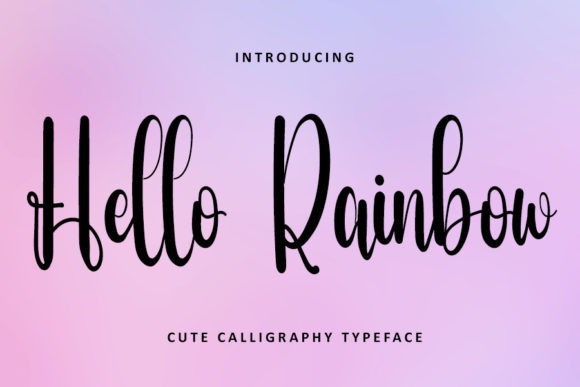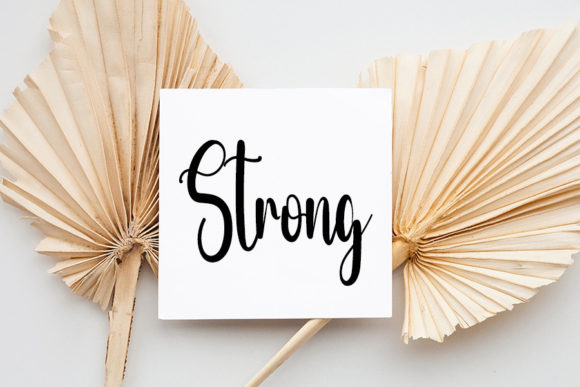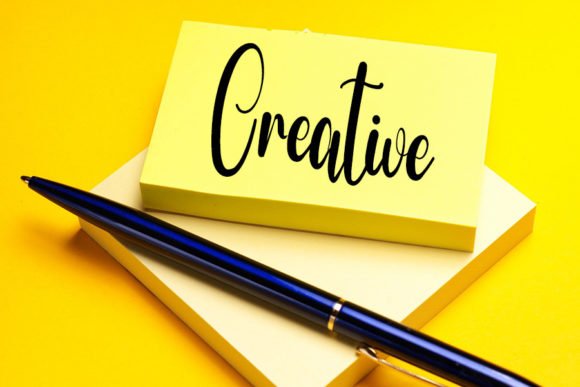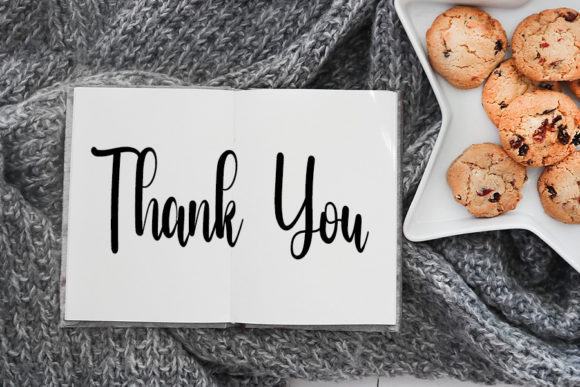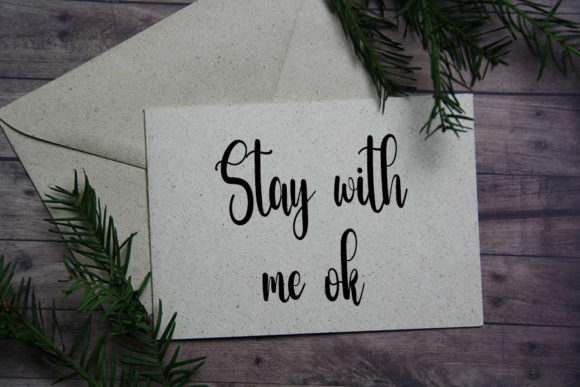
Hello Rainbow Font
About Hello Rainbow Font
“Hello Rainbow” emerges as a delightful handwritten font, designed to elevate your work with its lovely and elegant curvy lines. Tailored to make a statement, this font proves to be perfect for an array of creative endeavors, including product packaging, branding projects, magazine covers, social media content, weddings, or any scenario where expressing words with a touch of grace above the background is paramount.
The charm of “Hello Rainbow” lies in its graceful and curvaceous lines, which add a sense of elegance to any text it graces. The font’s lovely handwritten elements exude a warmth and sophistication that make it a versatile asset for designers seeking to infuse their projects with a visually pleasing and engaging aesthetic.
When applied to product packaging, “Hello Rainbow” transforms the ordinary into the extraordinary. Its elegant and curvy characteristics add a whimsical and refined flair to packaging design, capturing the attention of consumers and creating a memorable brand identity. Whether used for beauty products, gourmet items, or other merchandise, this font imparts a sense of uniqueness and charm.
In branding projects, “Hello Rainbow” becomes a visual representation of sophistication and creativity. Its lovely handwritten style can convey a sense of personality, establishing a connection between the brand and its audience. The font’s graceful lines make it suitable for a wide range of industries, from fashion to lifestyle.
Magazine covers benefit from the font’s ability to create captivating headlines and taglines. The elegant curves ensure that the cover text stands out, inviting readers to explore the content within. “Hello Rainbow” adds a layer of charm and sophistication to various genres, contributing to an overall visually appealing design.
In the realm of social media, where visual impact is crucial, “Hello Rainbow” shines. Whether incorporated into posts, captions, or stories, this font introduces a level of elegance that captures attention and enhances engagement. Its adaptability makes it suitable for a variety of content, from lifestyle posts to promotional announcements.
For weddings, a celebration marked by elegance and beauty, “Hello Rainbow” adds a refined touch to invitations, menus, and other materials. Its lovely handwritten style complements the romantic atmosphere of such events, creating a harmonious visual experience.
In essence, “Hello Rainbow” transcends the boundaries of a typical font; it becomes a design companion that enhances the visual storytelling of diverse projects. With its lovely and elegant curvy lines, this font stands ready to make a lasting impression, offering a touch of sophistication and charm to your creative endeavors, whether in product packaging, branding, magazine covers, social media, weddings, or any design scenario that calls for an exquisite aesthetic.